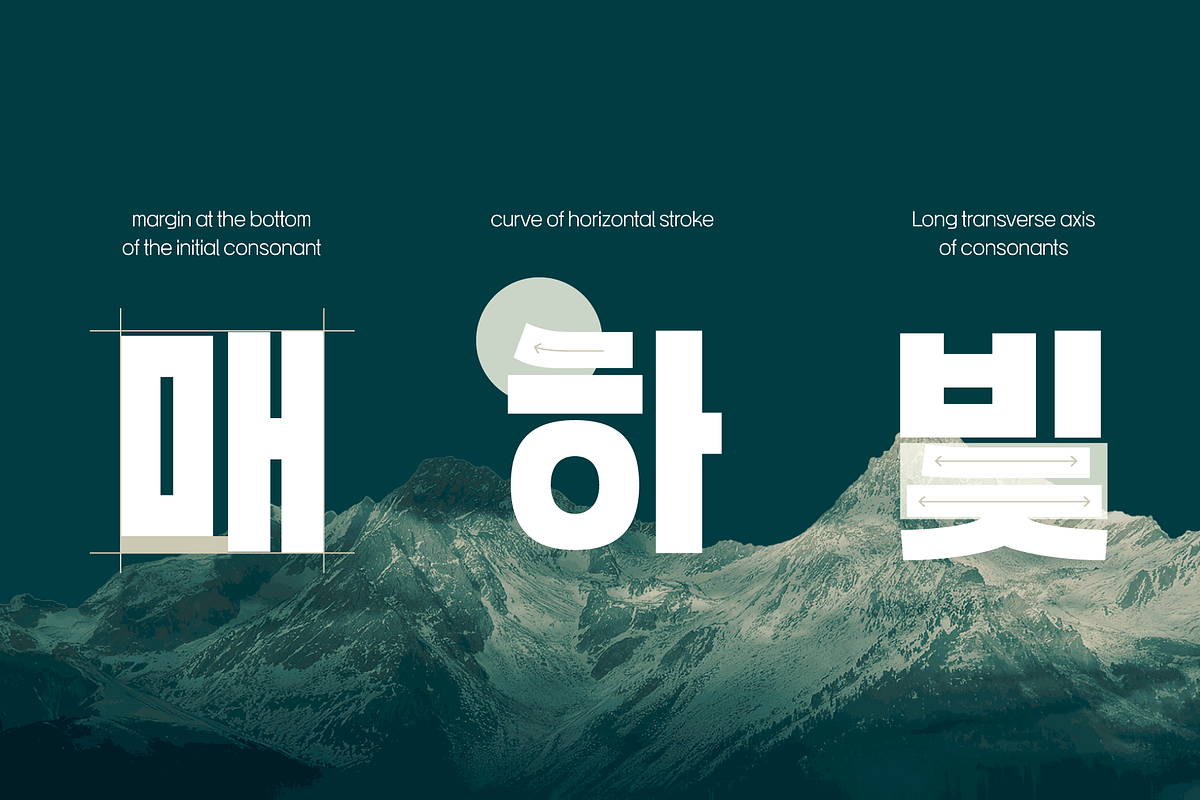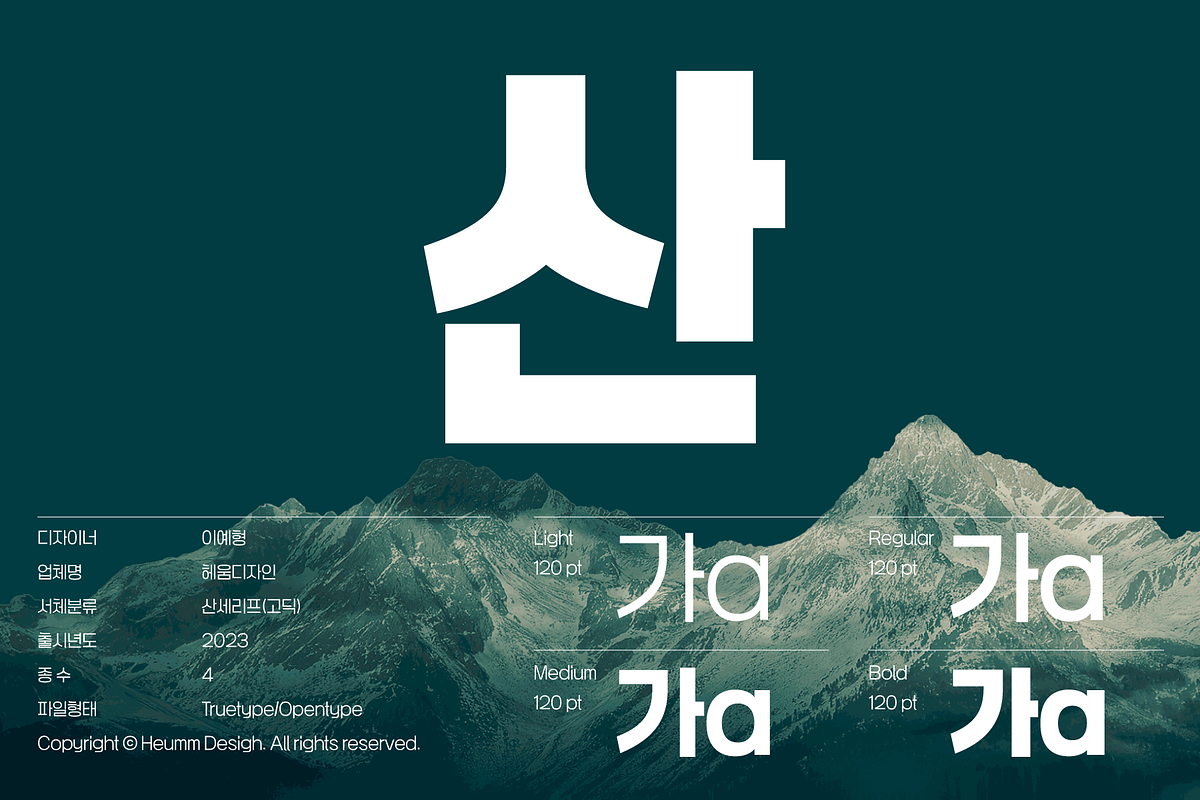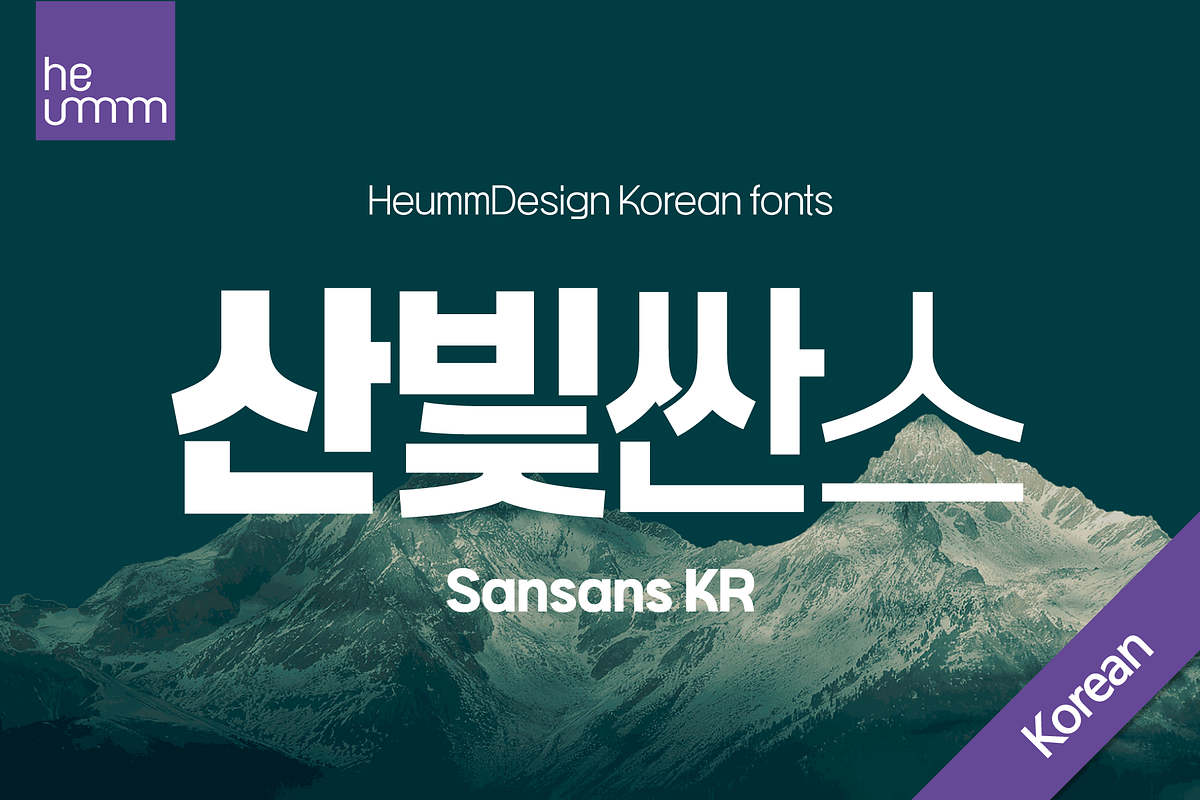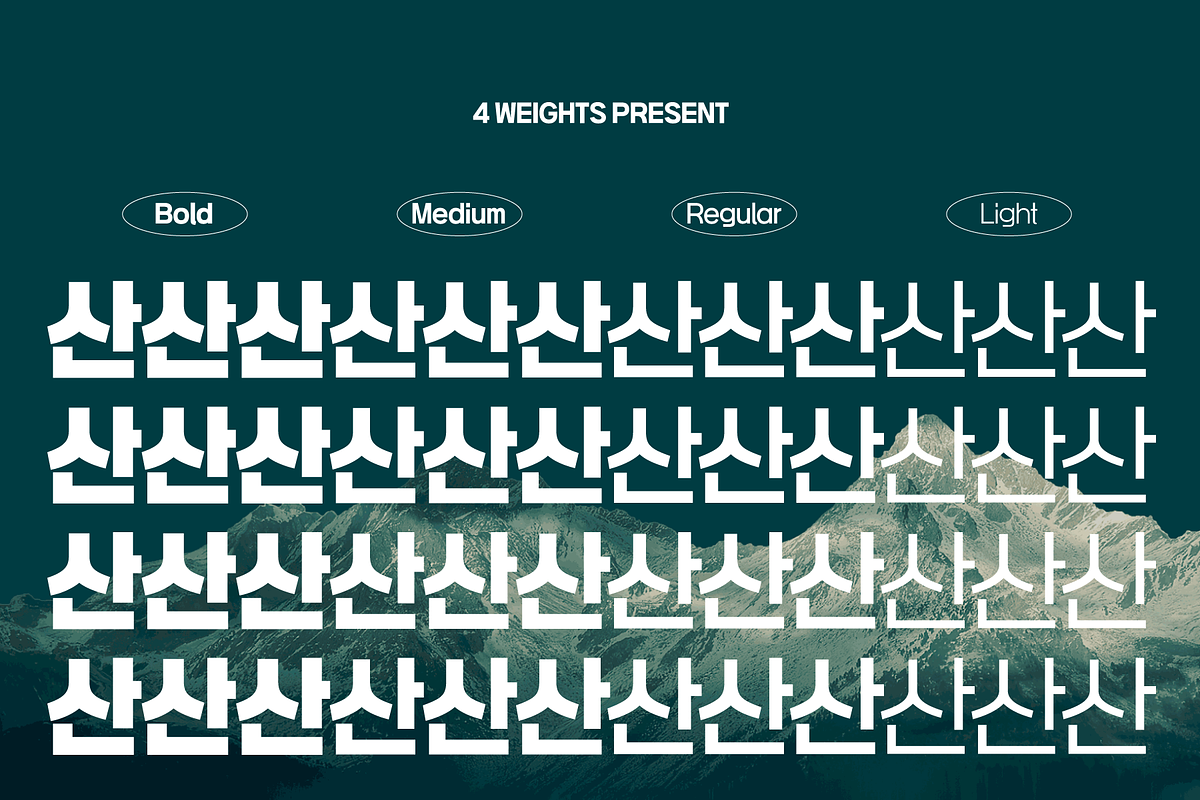
HU Sansans KR is a modern sans serif typeface that brings versatility with its four distinct styles.
It is a solid and trendy full square typeface that contains powerful and bright energy.
I created a young and bright feeling by making a blank at the bottom of the first consonant of the initial letter, and the curve of the first part continued the bright feeling of the font. By configuring 4 types of font families, the usability of typefaces has been increased.
Its clean lines and minimalist approach make it an ideal choice for a wide array of design projects, ranging from corporate branding to editorial layouts.
There is 4 weight of HU Sansans KR : Light, Regular, Medium, Bold